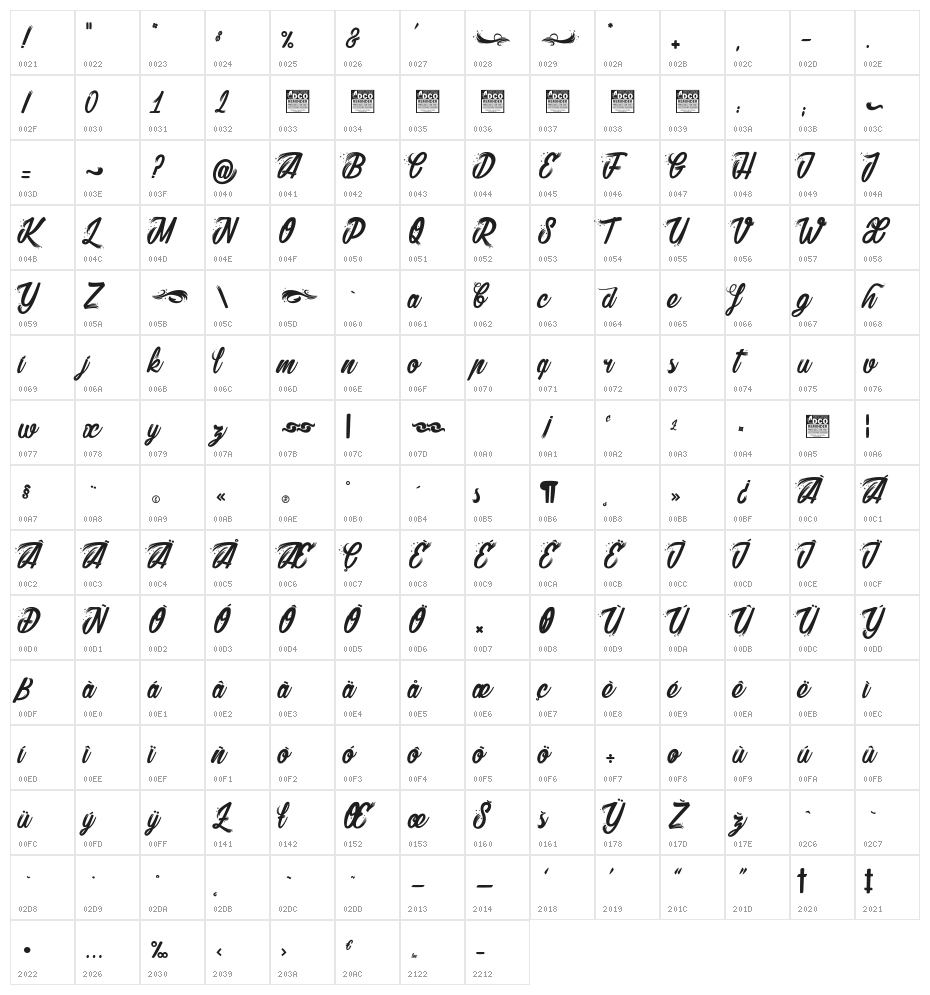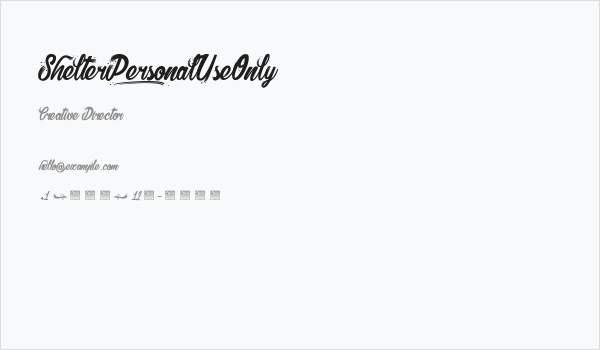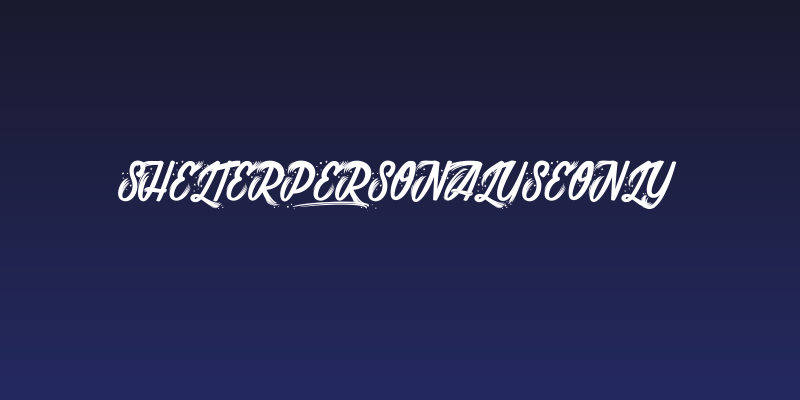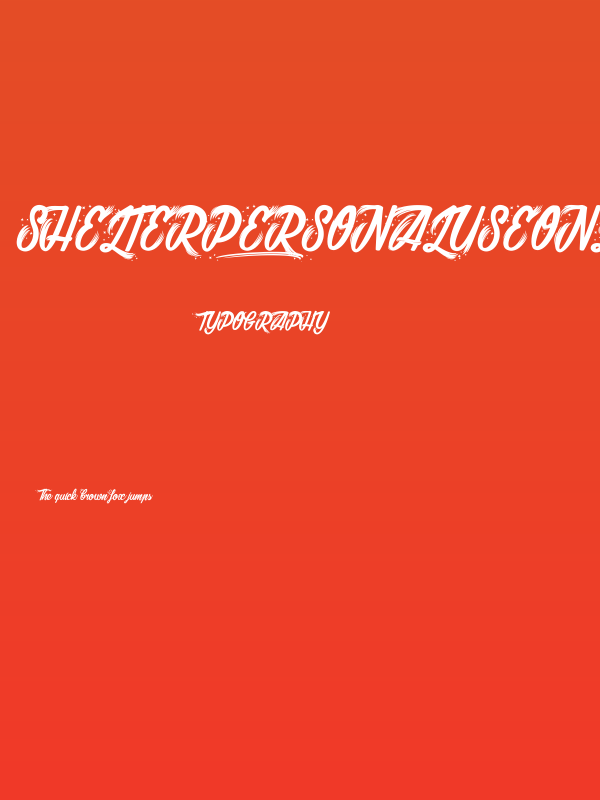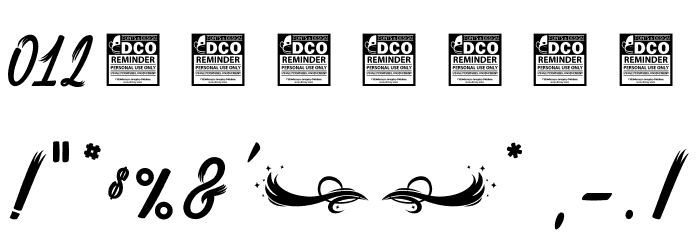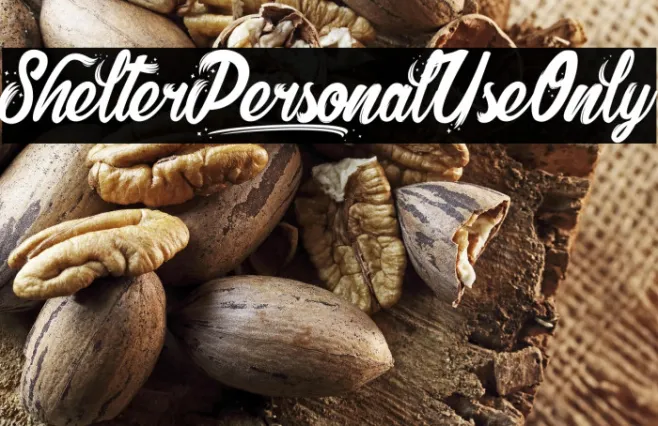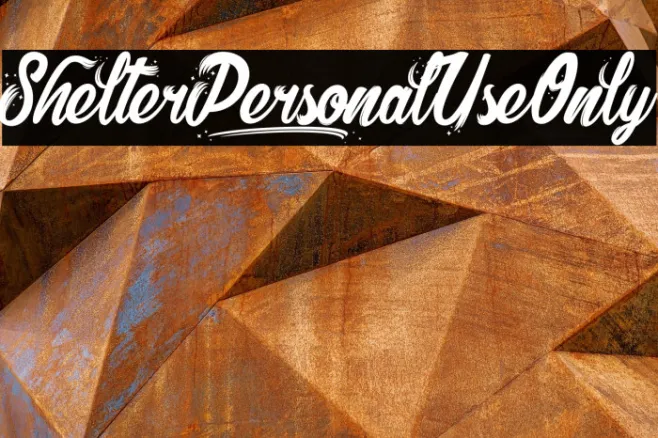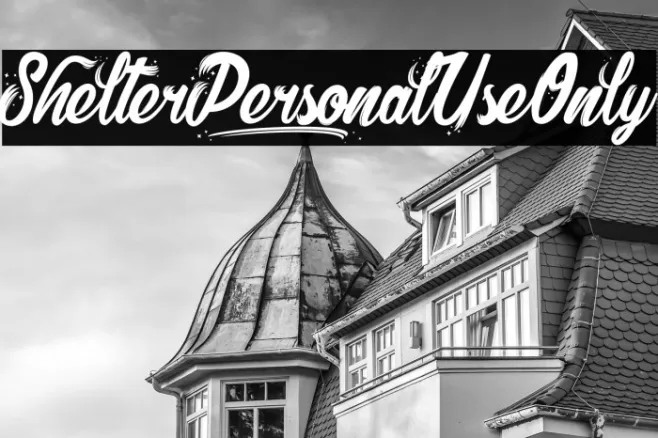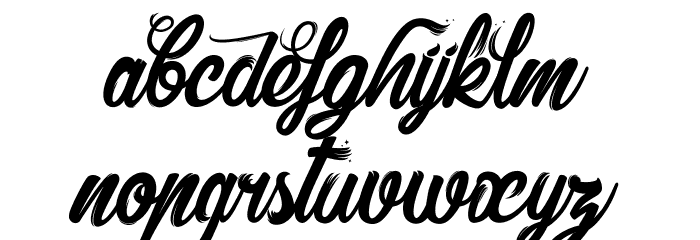
Shelter_PersonalUseOnly Font
Shelter_PersonalUseOnly Description
This font features a bold and dynamic script style with a brush-like appearance, characterized by its sweeping curves and fluid strokes. The uppercase letters are particularly striking, with dramatic flourishes and a sense of movement that adds a touch of elegance and flair. The lowercase letters maintain this fluidity, offering a cohesive look across the alphabet. Numbers and special characters are designed with the same attention to detail, ensuring consistency throughout. The font's decorative elements make it ideal for projects that require a personal and artistic touch.
| Proposed Projects | Ideal for wedding invitations, branding, logos, and artistic posters. |